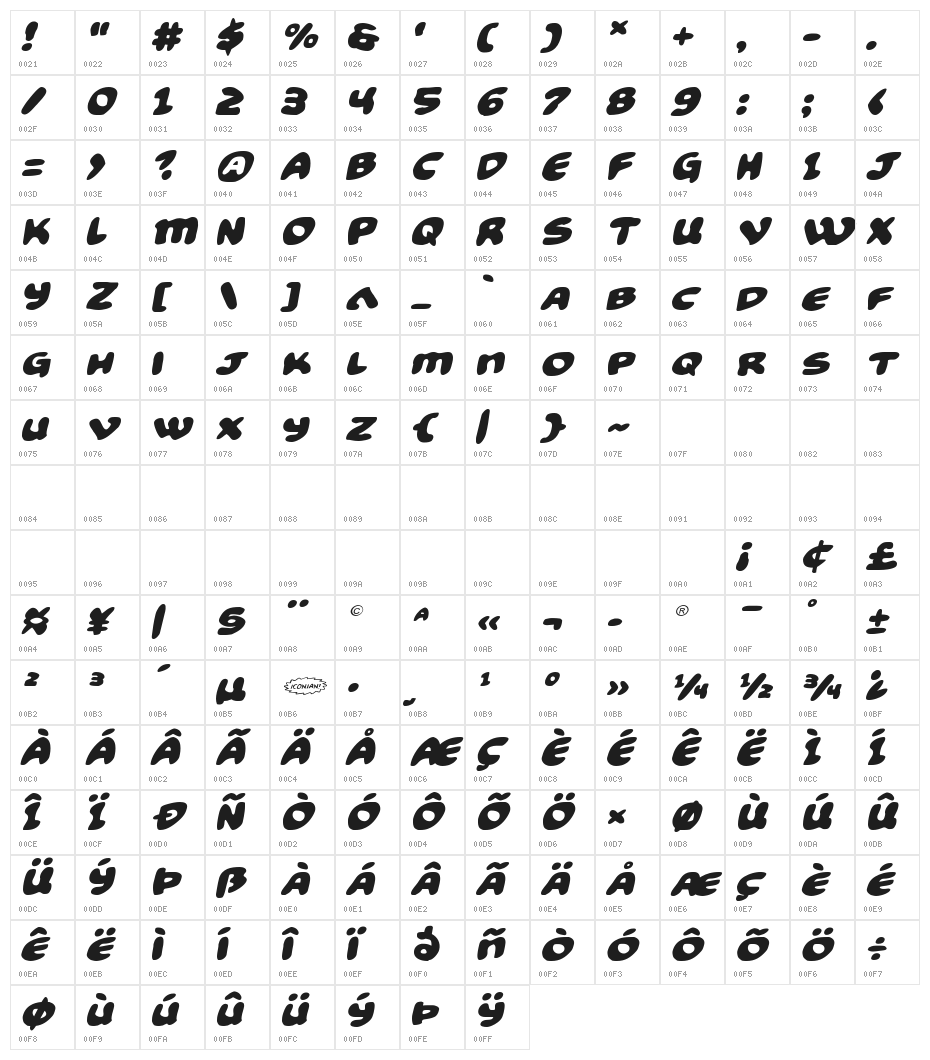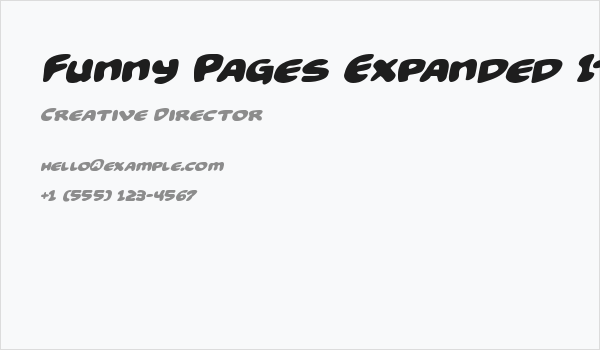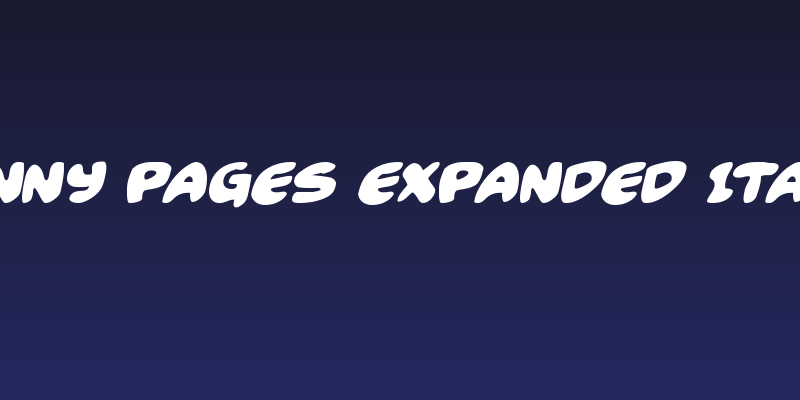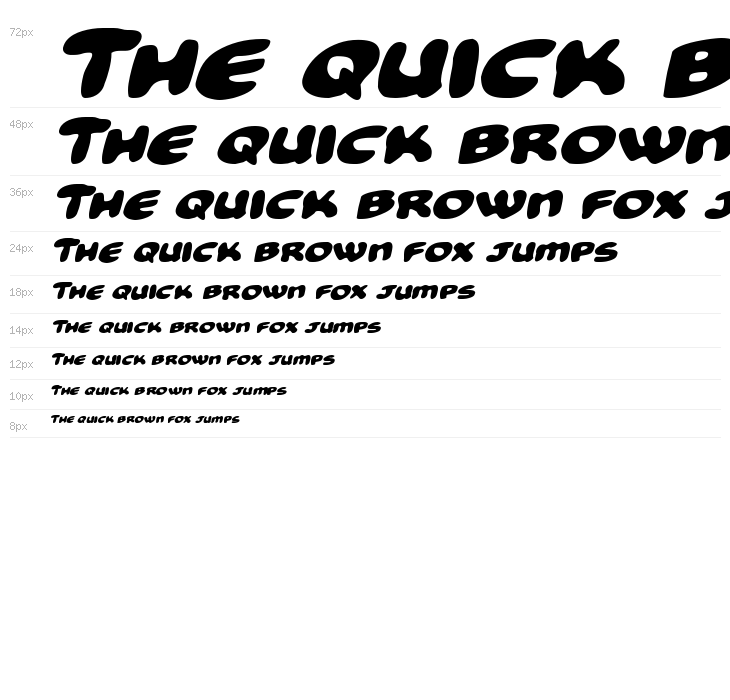
Funny Pages Expanded Italic Font
Funny Pages Expanded Italic Description
This playful and bold font features a whimsical, cartoon-like style with an expanded and italicized form. The characters are rounded and thick, giving a sense of fun and energy. The strokes are consistent in width, creating a uniform appearance across all letters and numbers. The font's exaggerated curves and playful design make it ideal for projects that require a light-hearted and informal touch. Its expanded width allows for easy readability, even at smaller sizes. The italic slant adds a dynamic feel, enhancing the overall playful aesthetic.
| Overall Style | Playful, Cartoon-like |
| Proposed Projects | Ideal for comic books, children's books, playful branding, and fun posters. |